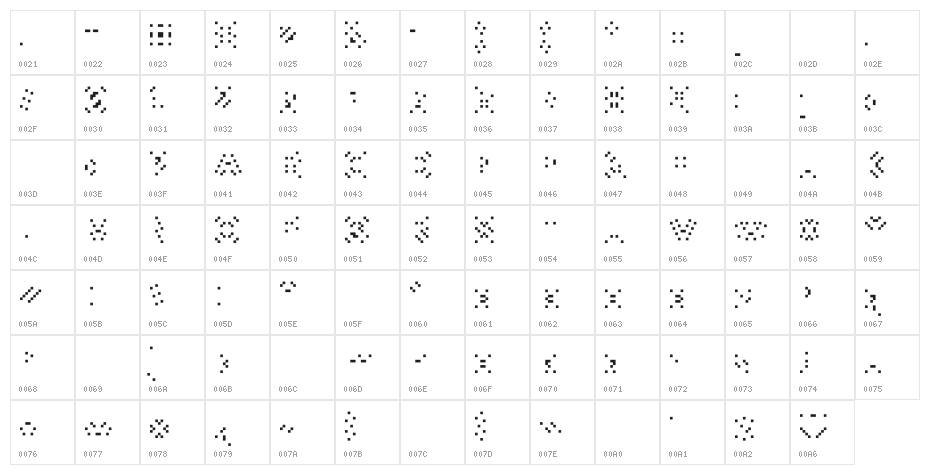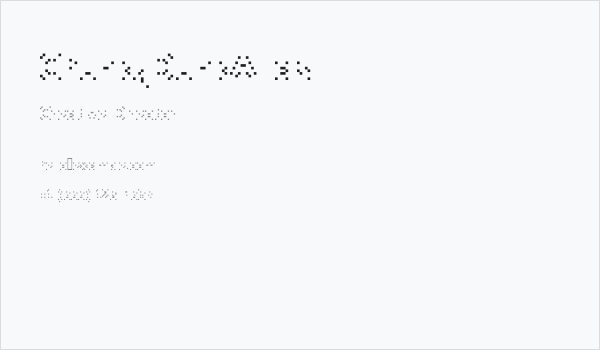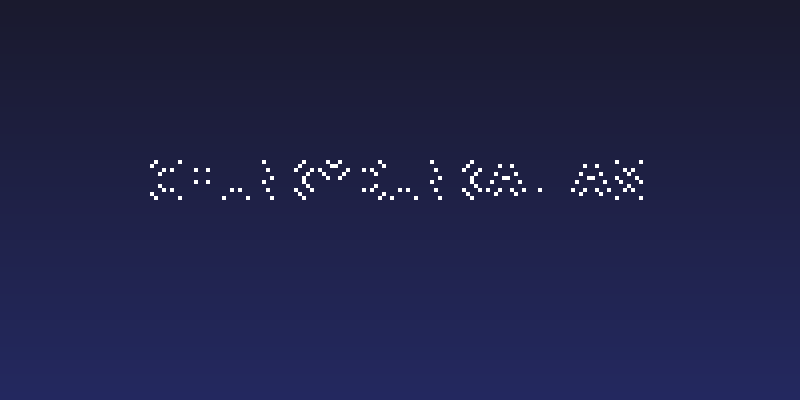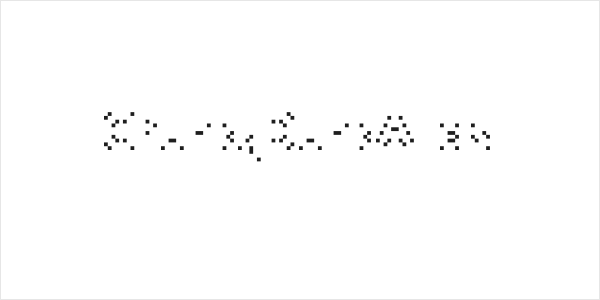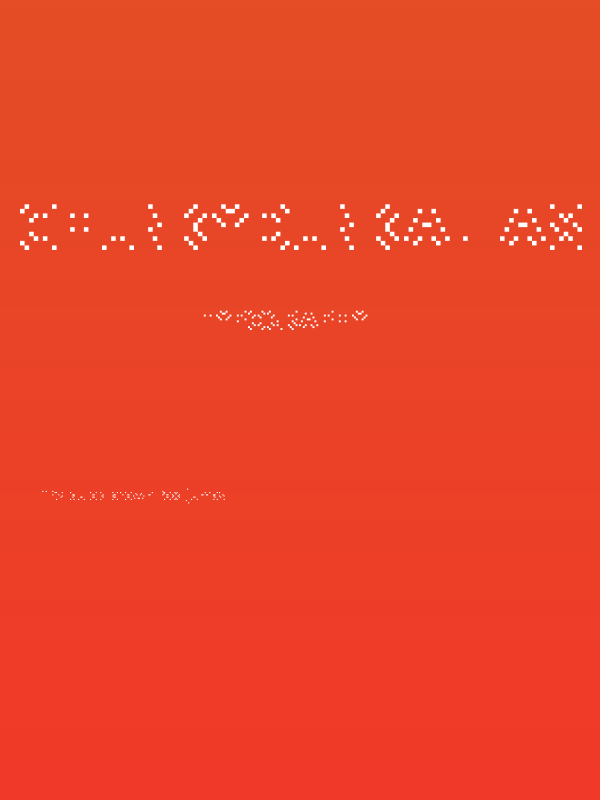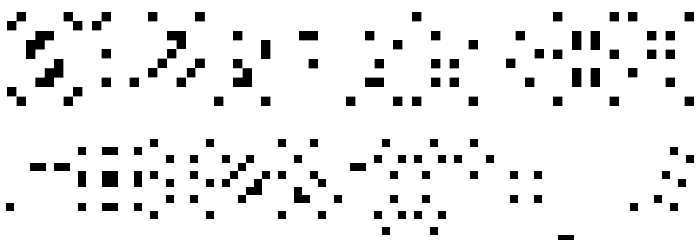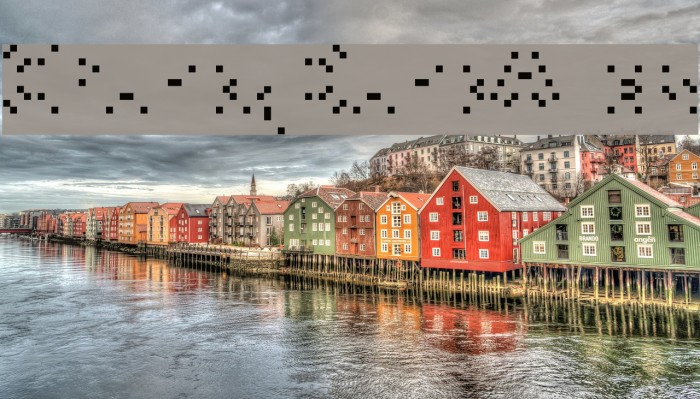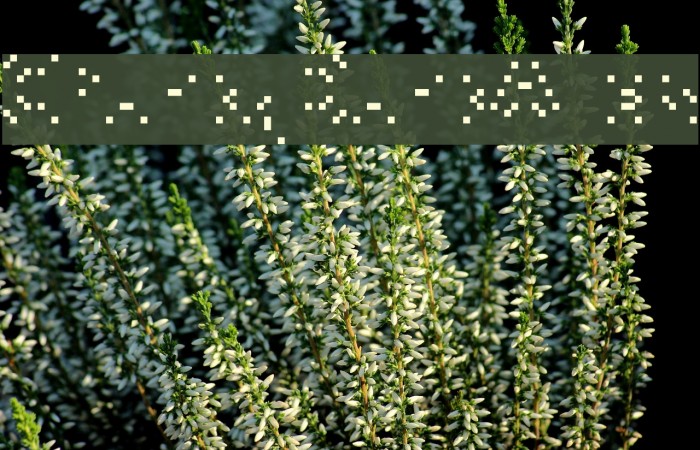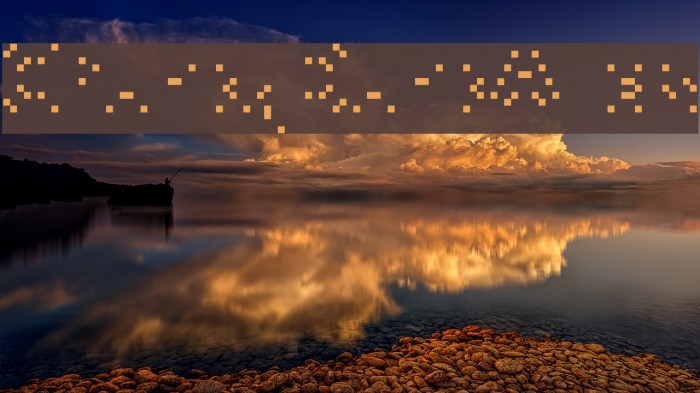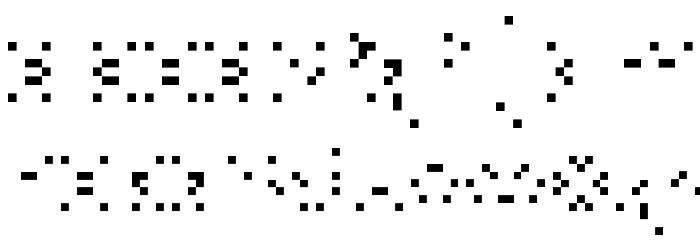
ChunkyDunkAlias Font
ChunkyDunkAlias Description
This font features a bold and playful design with a chunky, pixelated style. Each character is composed of a grid-like structure, giving it a retro, digital appearance reminiscent of early computer graphics or video games. The characters are uniformly spaced, maintaining a consistent width and height across both uppercase and lowercase letters. The numbers and special characters follow the same design principles, ensuring a cohesive look throughout. This font's unique style makes it stand out, offering a nostalgic yet modern twist that can capture attention in various design contexts.
| Proposed Projects | Ideal for video game graphics, retro-themed posters, digital art projects, and any design requiring a nostalgic or playful touch. |